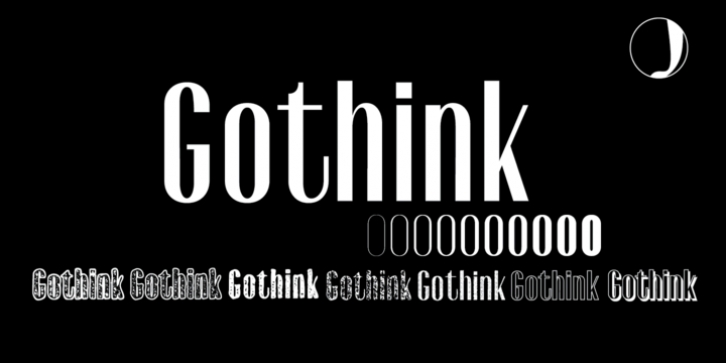
Publisher: Jadugar Design Studio
Gothink was designed by mobaric minhas and published by Jadugar Design Studio. Gothink contains 47 styles and family package options.
Gothink is a modern styled typeface. It has 10 weights with four styles. This also include some retro typed, old aged , shadow, outline as well. This style typeface is perfect for your new project.